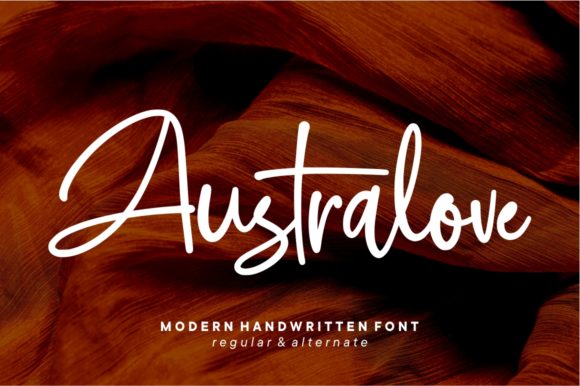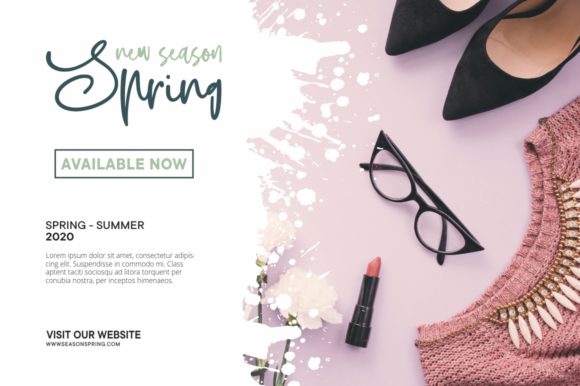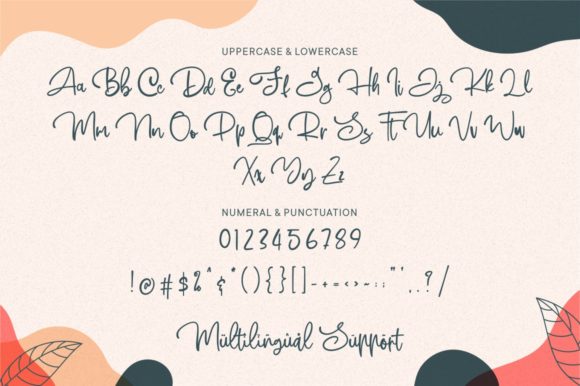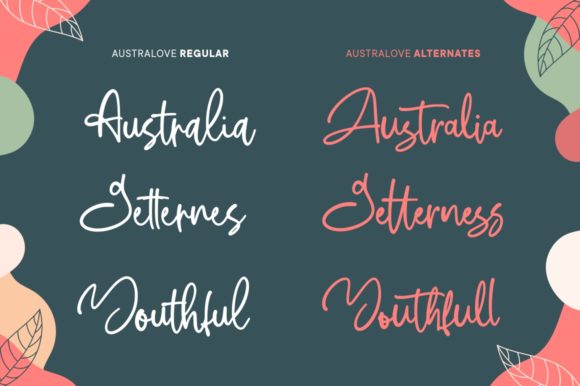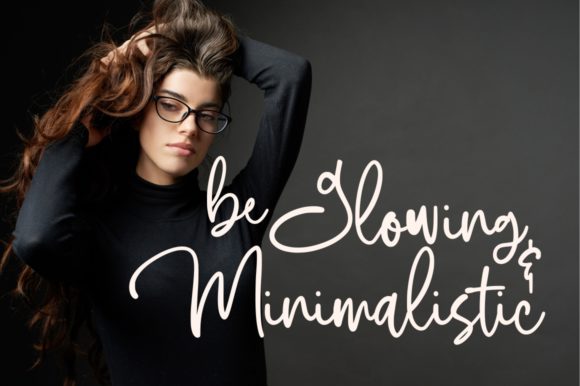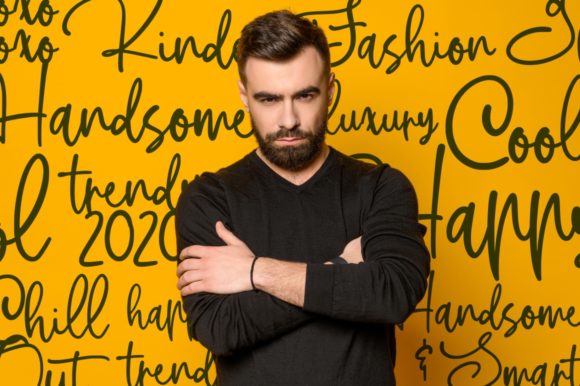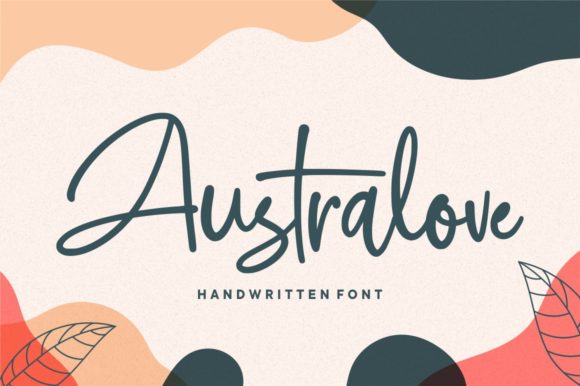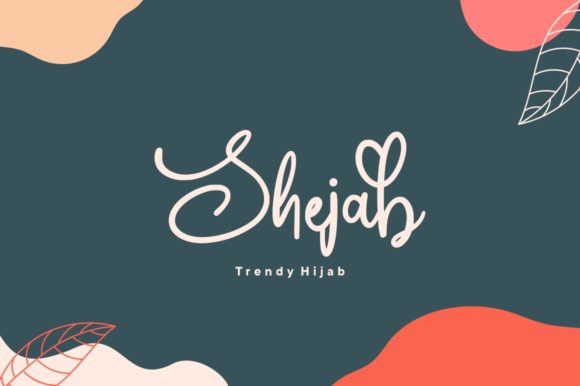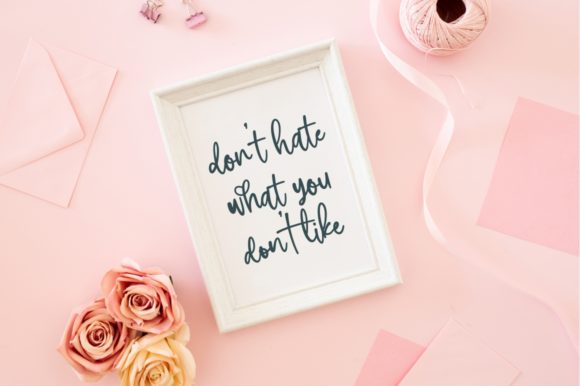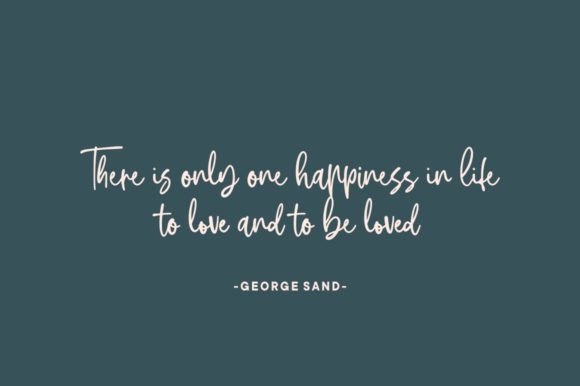
HomeScript FontsAustralove Font Script Fonts Australove Font FacebookXPinterestWhatsApp Australove Font Poster 2 Australove Font Poster 3 Australove Font Poster 4 Australove Font Poster 5 Australove Font Poster 6 Australove Font Poster 7 Australove Font Poster 8 Australove Font Poster 9 Australove Font Poster 10 Australove Font Poster 11 Australove Font Poster 12 Australove Font Poster 13 Australove Font Poster 14 Australove Font Poster 15 About Australove Font Australove is a modern script with a gorgeous feel. Fall in love with its modern swashes! DOWNLOAD NOW People also explored Lastra Font Hunkydory Font Boboho Font Paiton Font Victamin Font Daily Notes Font Verllina Font Balls Christmas Font Dream Reality Font 278 0 TagsAustralove Font Previous articleSmooth Dahlia FontNext articleEmmalee Font LEAVE A REPLY Cancel reply Comment: Please enter your comment! Name:* Please enter your name here Email:* You have entered an incorrect email address! Please enter your email address here Website: Save my name, email, and website in this browser for the next time I comment. Personal Use Free Starborn Font Personal Use Free Read more about this font Bintang Noela Personal Use Free Read more about this font Spaghetti Personal Use Free Read more about this font Cloudy Night Personal Use Free Read more about this font BLOG Free Fonts Risk: Why Free Fonts Can Be Dangerous for Designers Free Fonts Risk: Why Free Fonts Can Be Dangerous for Designers Using free fonts is a common practice in web and graphic design. However, the... Best Fonts for YouTube Videos: Make Your Thumbnails Stand Out Transform Your Website: Elevate Your Typography with 7 Best Web Font Generators Fonts That Capture the Spirit of New York City